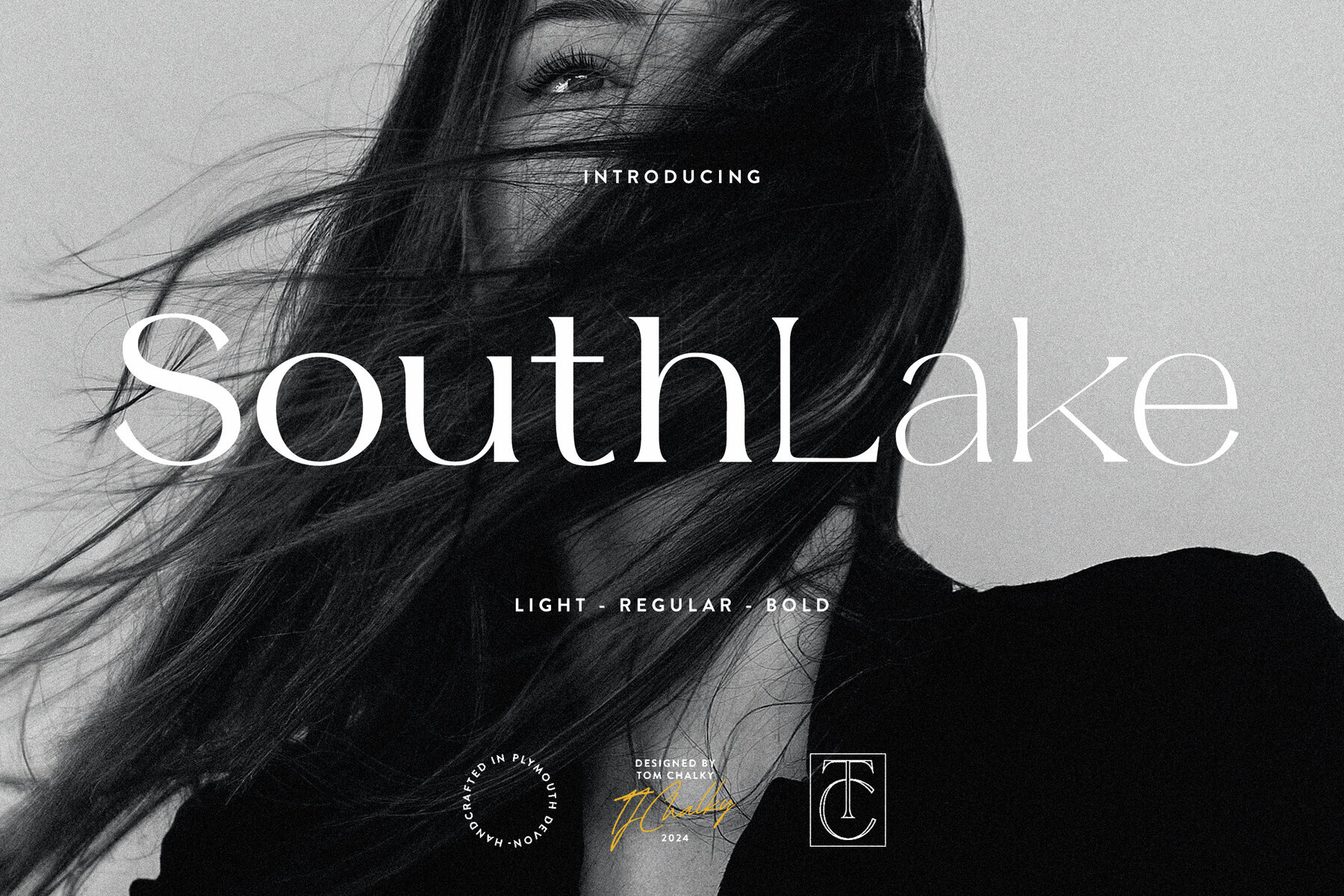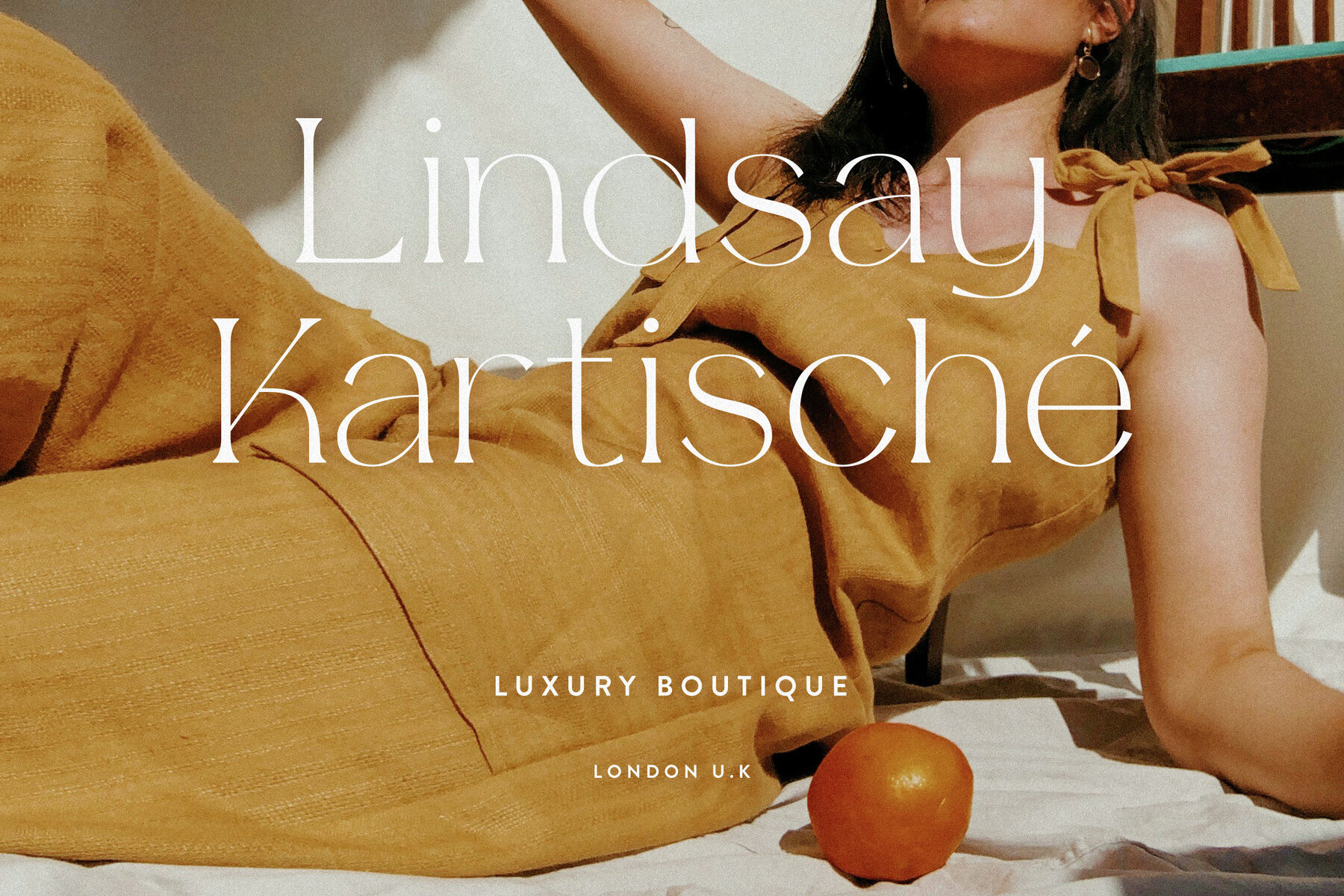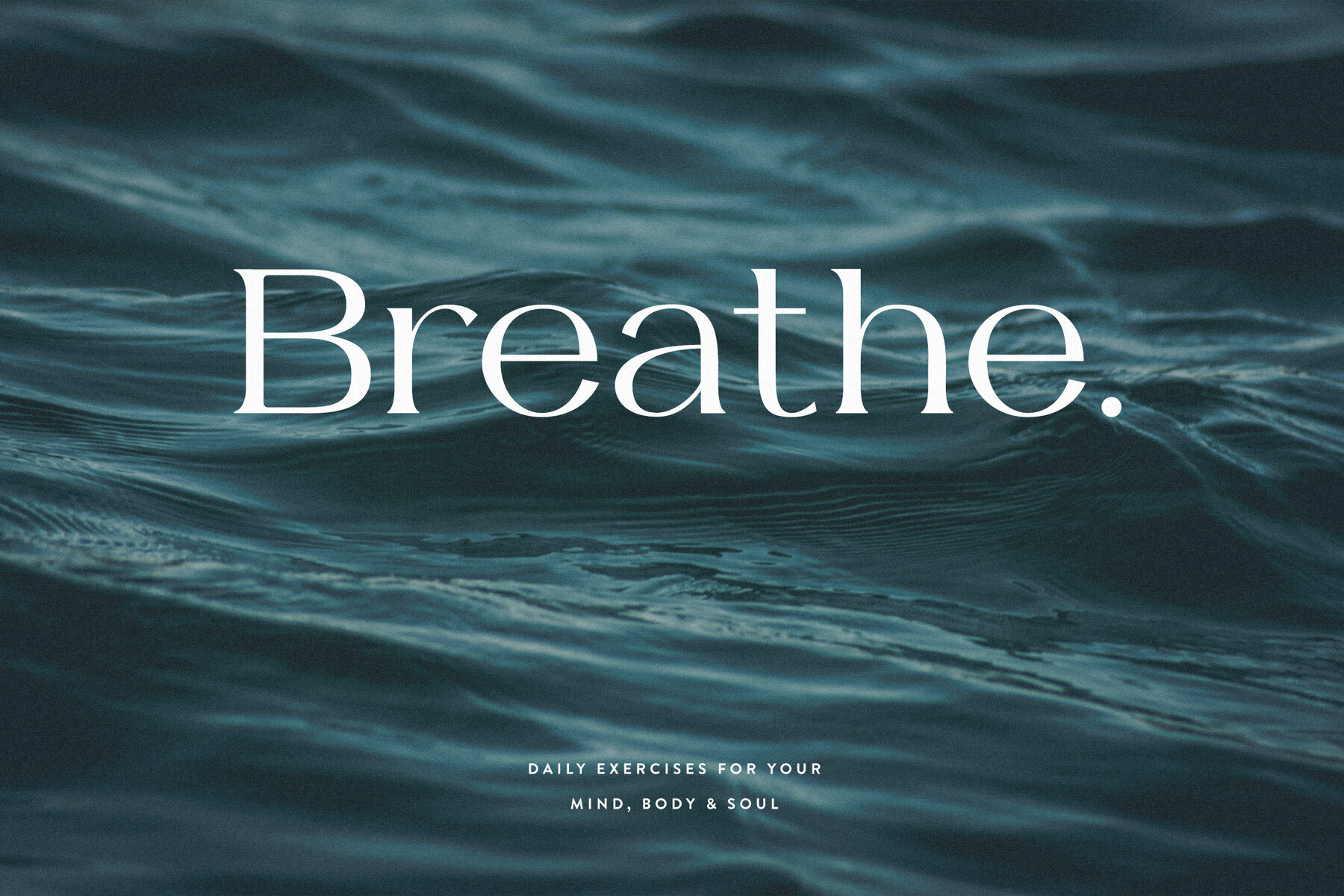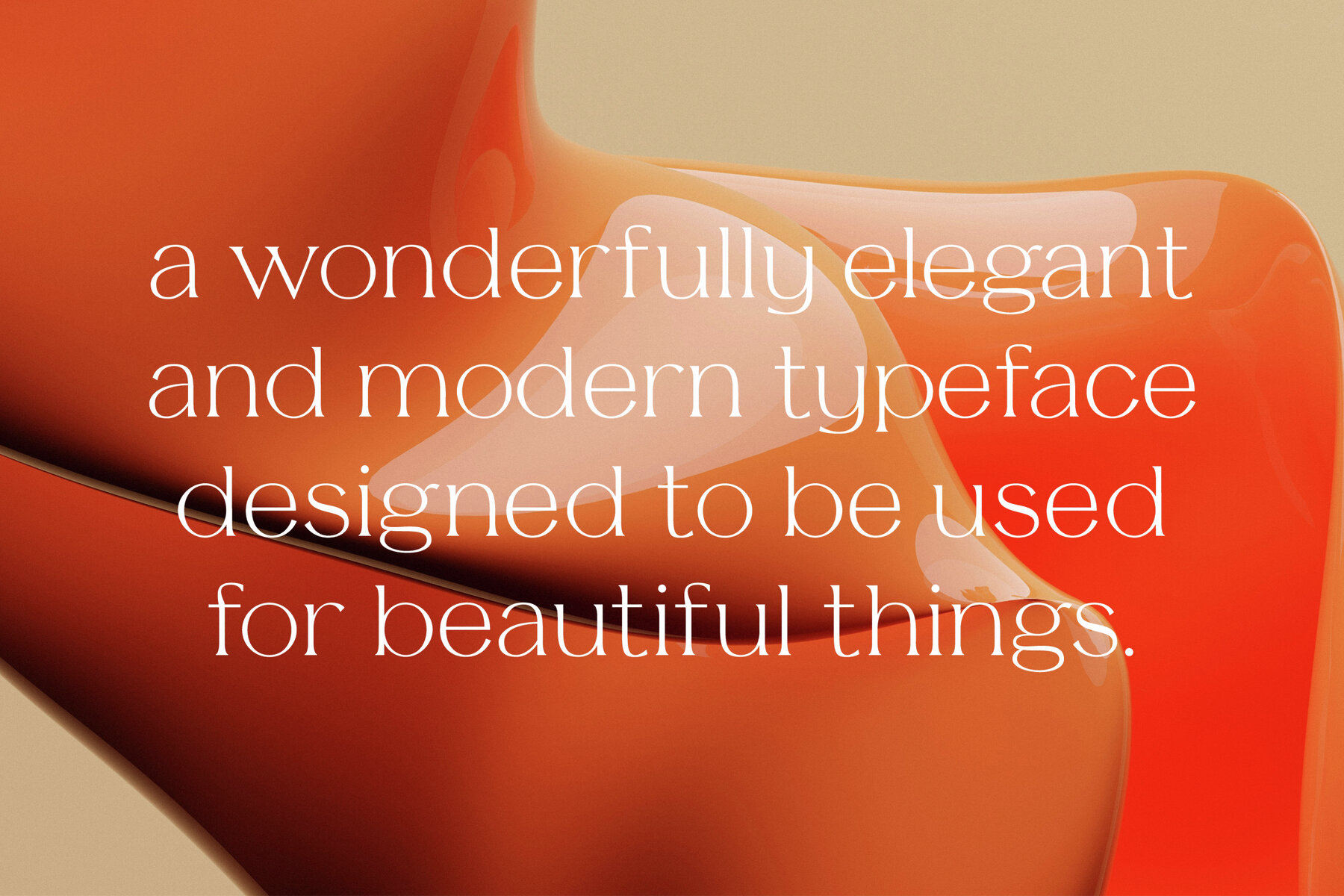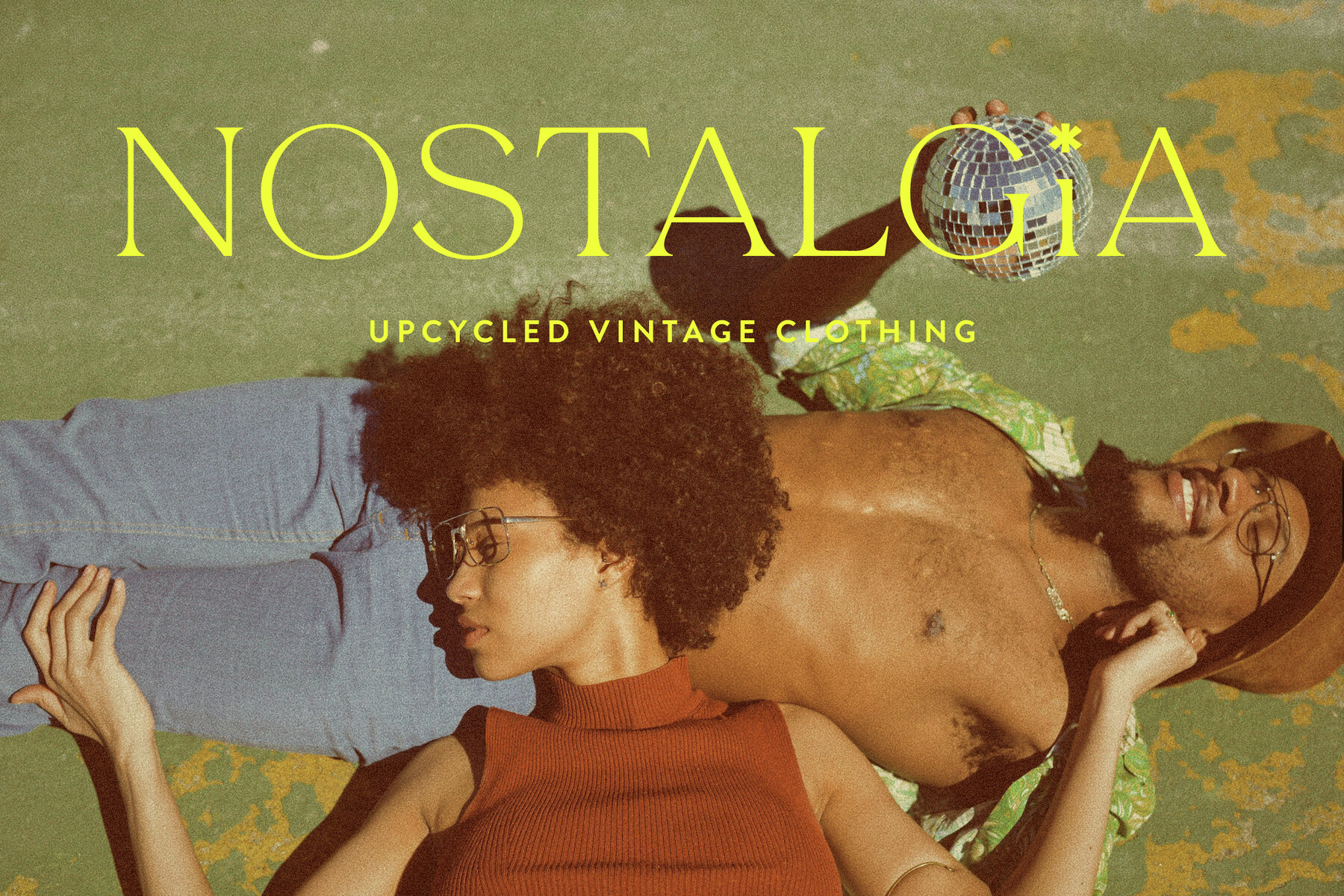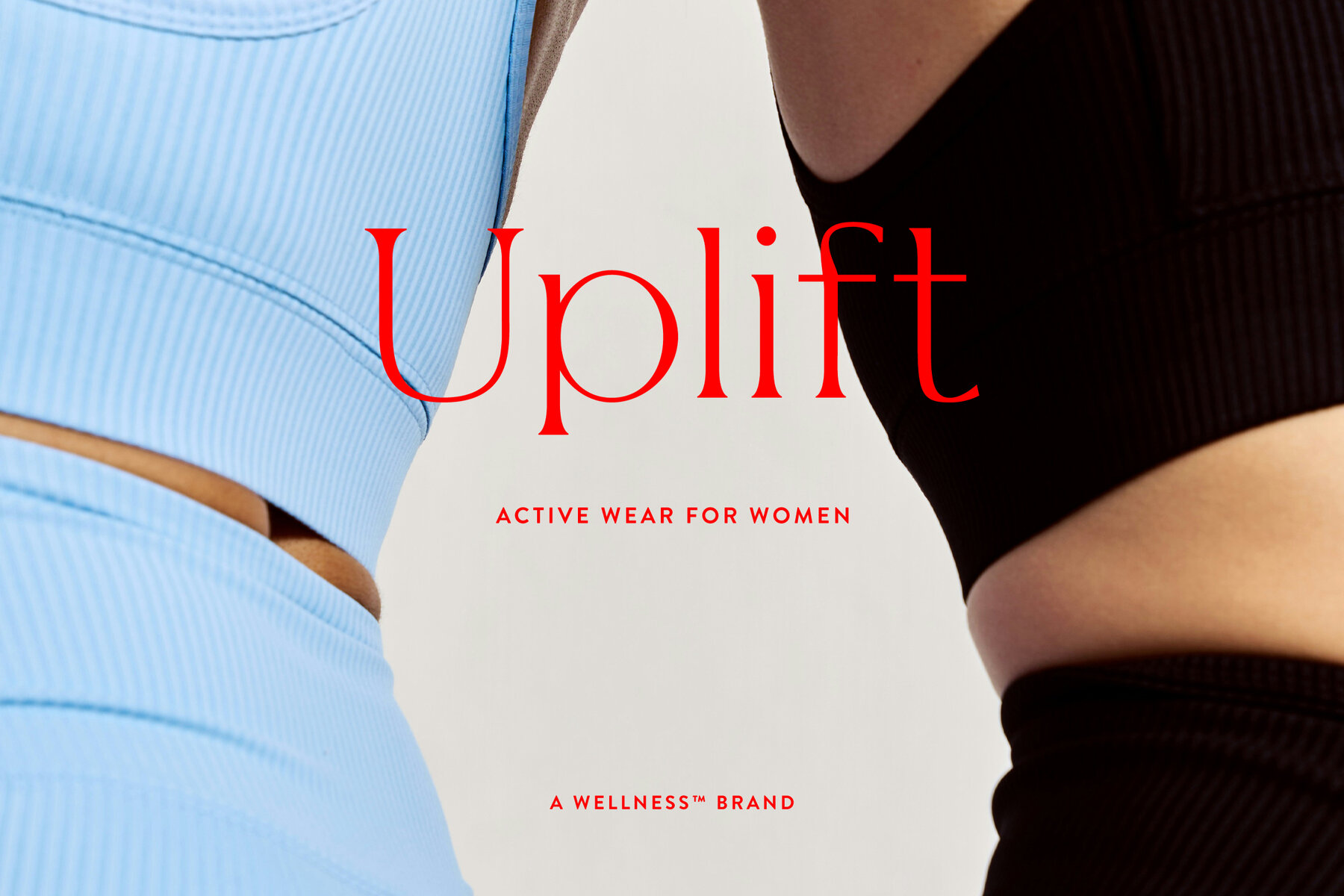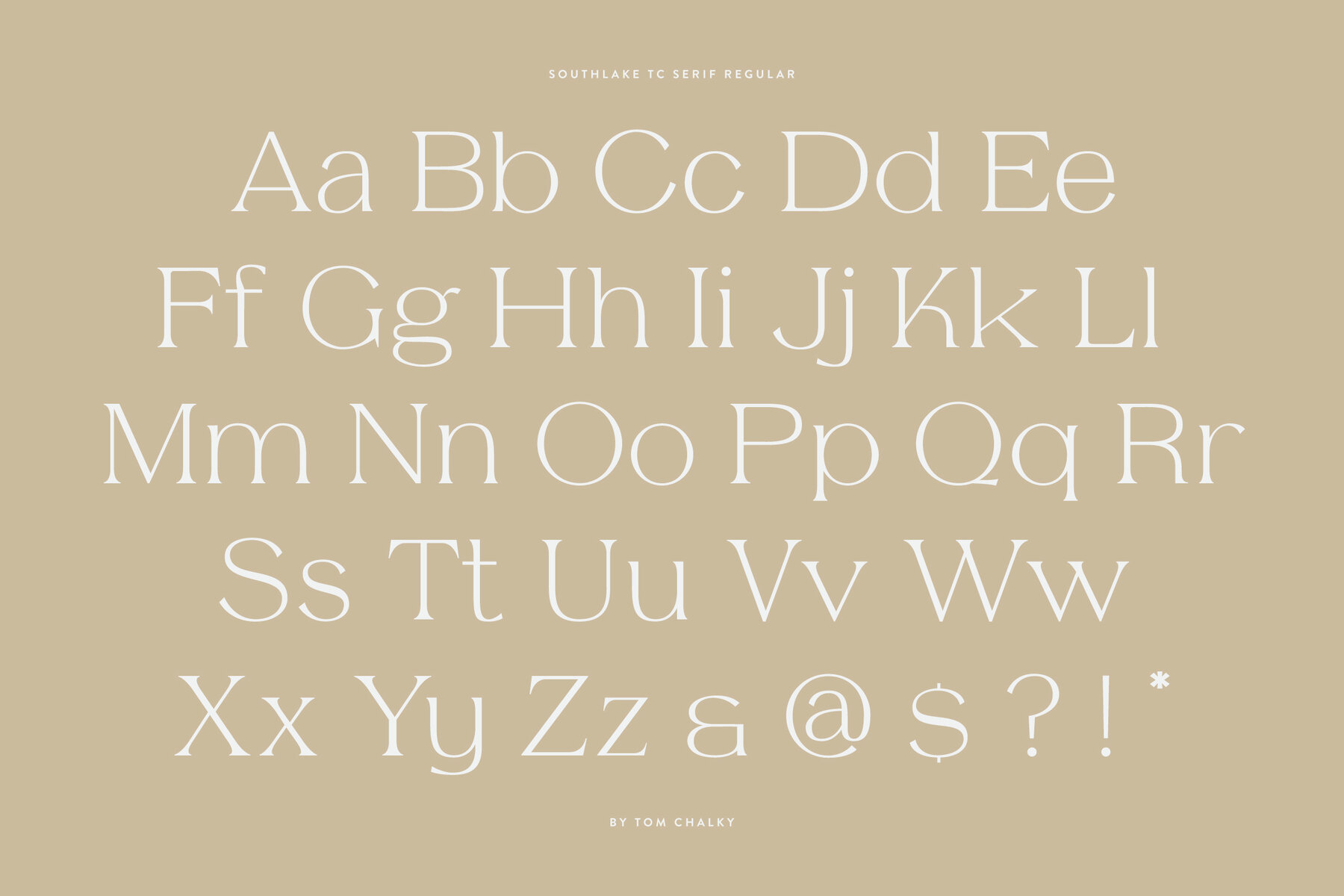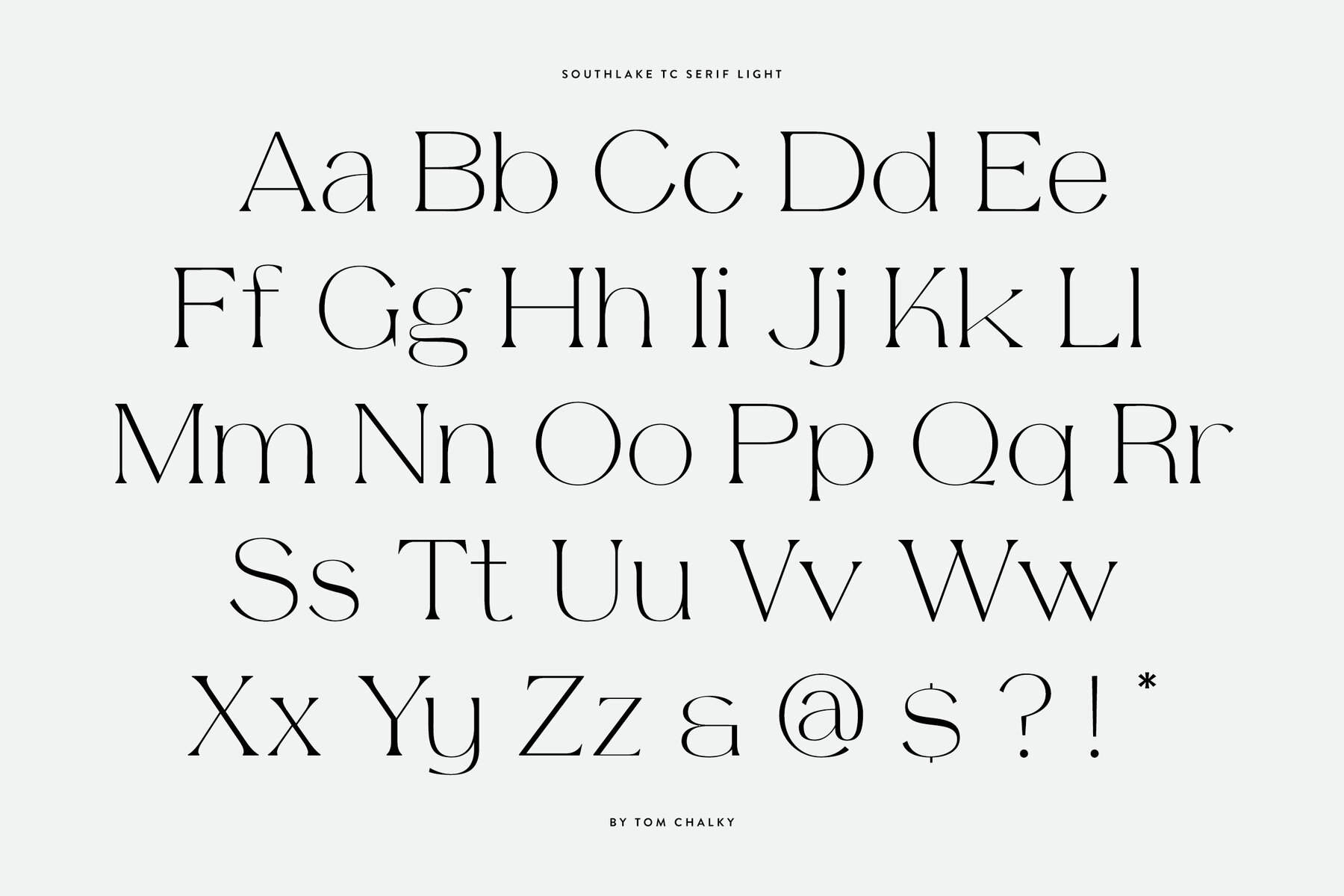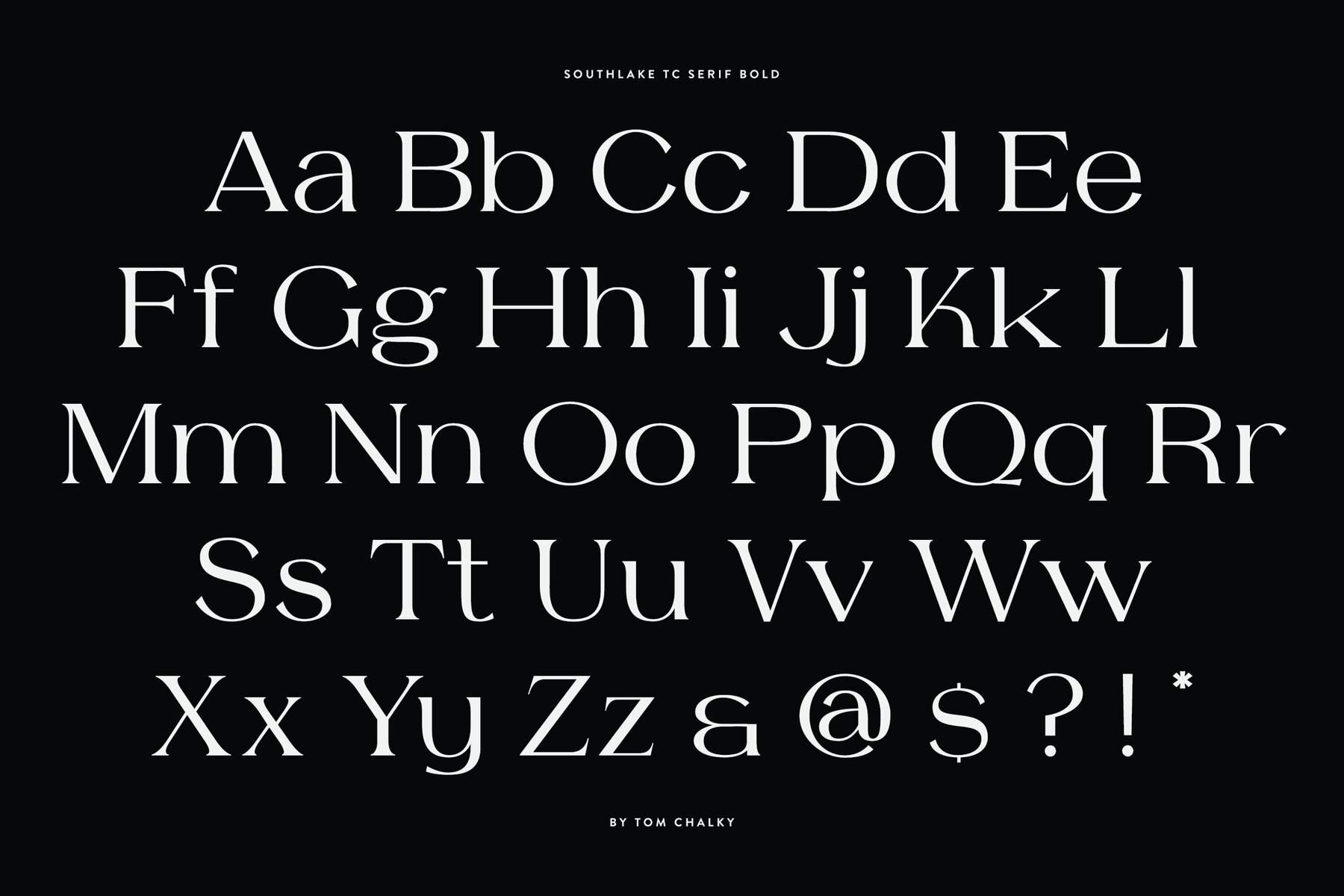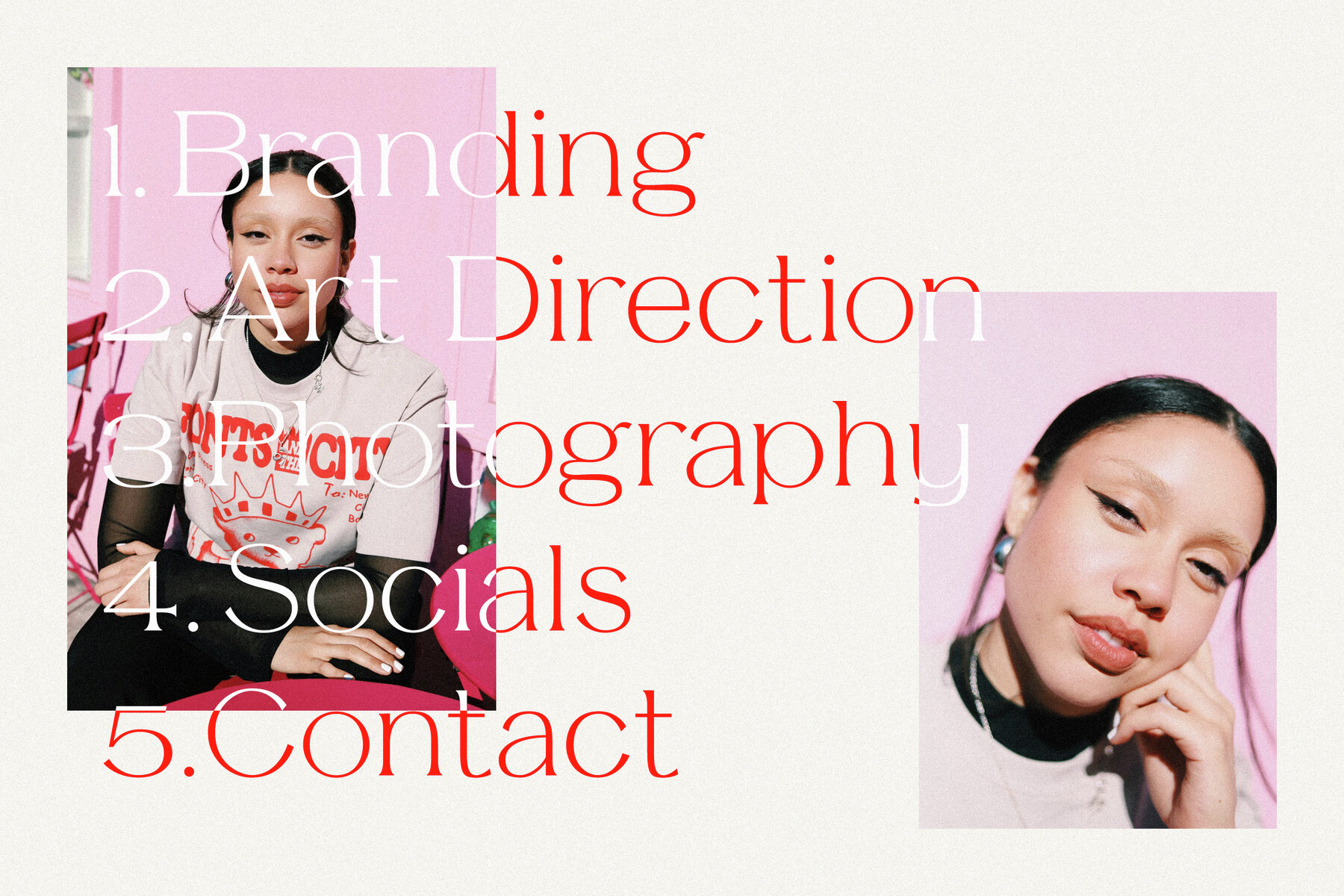
TC Southlake Font
Introducing Southlake, your new favorite modern serif font that exudes elegance and timeless appeal. Perfectly suited for a wide range of stylish design projects, this typeface blends a classy demeanor with generous proportions to make a bold statement. Ideal for headlines, luxury branding, and editorial designs, Southlake shines when given space to breathe. With its refined appearance, this font family stands out, conveying trust, sophistication, and creativity. Quick Overview